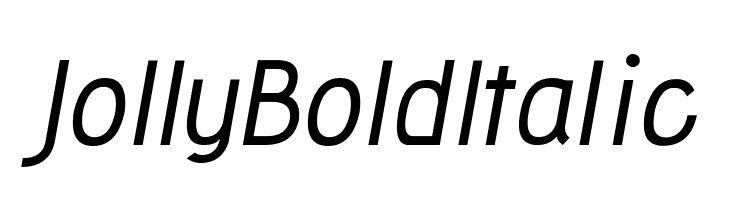
A bold, italic font with a modern and elegant slant.
Bold, italicized sans-serif font with a modern and dynamic style.
A sleek, modern italic font with smooth, slanted letterforms and rounded edges.
A modern, italicized font with a sleek and fluid style.